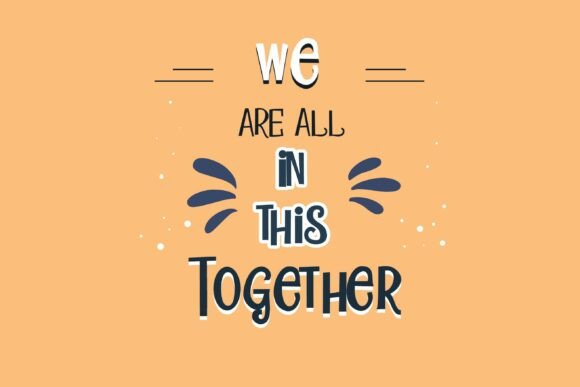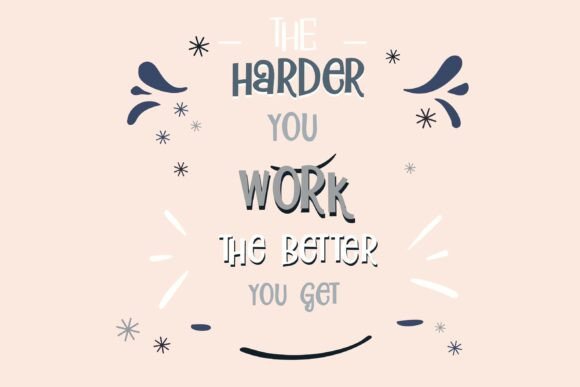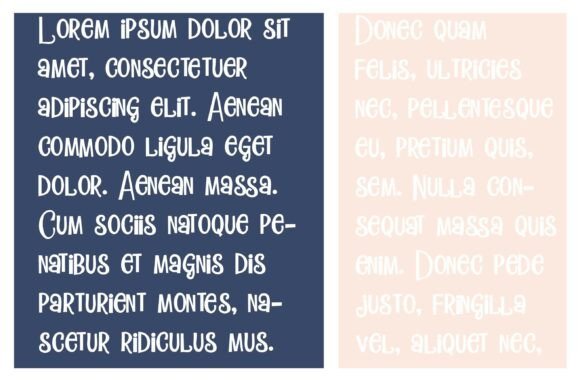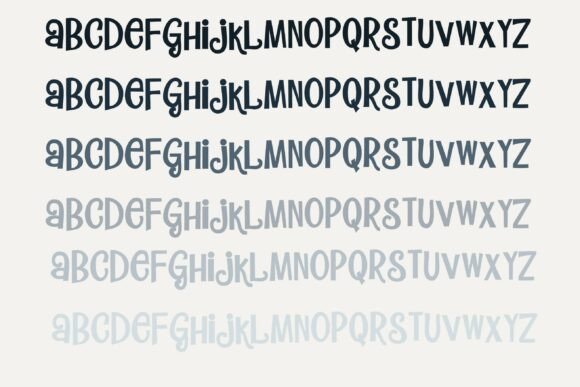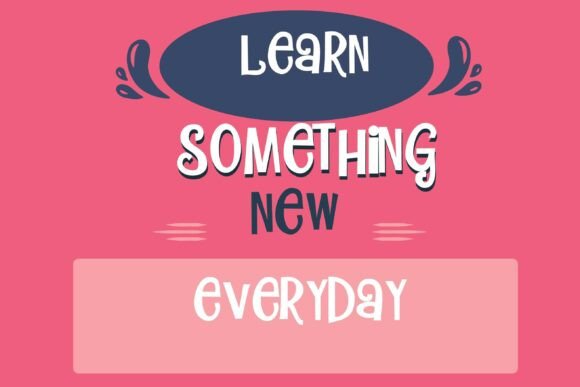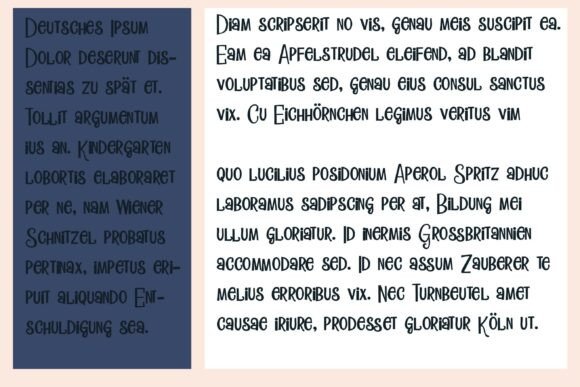
Add a Touch of Elegance to Your Playfulness with Bambi Font
In the world of typography, a font can make all the difference in conveying the right tone and personality for a brand or design project. For those looking to add a touch of elegance to their playfulness, Bambi font is an excellent choice. This slender display typeface captures a “graceful-and-quirky” soul, making it perfect for designs that require a balance of sophistication and whimsy.
The Characteristics of Bambi Font
Bambi font features tall, narrow letterforms with rhythmic, high-waisted curves and charming “bouncy” serifs. These distinctive characteristics give the font a lighthearted, dancing motion that is sure to capture the attention of your audience. The sophisticated vertical energy of Bambi font makes it an excellent choice for designs that require a sense of elegance and refinement.
One of the standout features of Bambi font is its handcrafted charm. The font’s unique and quirky personality is reminiscent of handwritten typography, making it perfect for designs that require a personal touch. The rhythmic curves and bouncy serifs give Bambi font a sense of movement and energy, making it ideal for designs that need to stand out.
Use Cases for Bambi Font
Bambi font is a versatile typeface that can be used in a variety of design projects. Here are some of the premier use cases for this elegant and playful font:
• Independent Boutique Stationery: Bambi font is perfect for creating elegant and sophisticated stationery for independent boutiques. The font’s slender letterforms and bouncy serifs make it ideal for creating eye-catching business cards, letterheads, and envelopes.
• Whimsical Children’s Apparel Branding: Bambi font’s playful and quirky personality makes it an excellent choice for branding whimsical children’s apparel. The font’s handcrafted charm and rhythmic curves give it a youthful and energetic feel that is sure to appeal to kids and parents alike.
• Creative Lifestyle Blog Titles: Bambi font is a great choice for creative lifestyle blogs that require a touch of elegance and sophistication. The font’s sophisticated vertical energy and handcrafted charm make it perfect for creating eye-catching blog titles and headings.
• High-Impact “Chic-and-Cheerful” Social Media Headers: Bambi font’s unique and quirky personality makes it an excellent choice for creating high-impact social media headers. The font’s bouncy serifs and rhythmic curves give it a sense of movement and energy that is sure to grab the attention of social media users.
Why Choose Bambi Font?
So why choose Bambi font for your design project? Here are just a few reasons why this elegant and playful font is an excellent choice:
• Unique and Quirky Personality: Bambi font has a unique and quirky personality that sets it apart from other typefaces. Its handcrafted charm and rhythmic curves give it a sense of movement and energy that is sure to capture the attention of your audience.
• Versatility: Bambi font is a versatile typeface that can be used in a variety of design projects. Whether you’re creating stationery, branding, or social media headers, Bambi font is an excellent choice.
• Elegance and Sophistication: Bambi font’s slender letterforms and bouncy serifs give it a sense of elegance and sophistication that is perfect for designs that require a touch of refinement.
In conclusion, Bambi font is an excellent choice for designers and crafters looking to add a touch of elegance to their playfulness. With its unique and quirky personality, versatile use cases, and elegant and sophisticated characteristics, Bambi font is the premier choice for a wide range of design projects. Whether you’re creating stationery, branding, or social media headers, Bambi font is sure to make your design stand out.